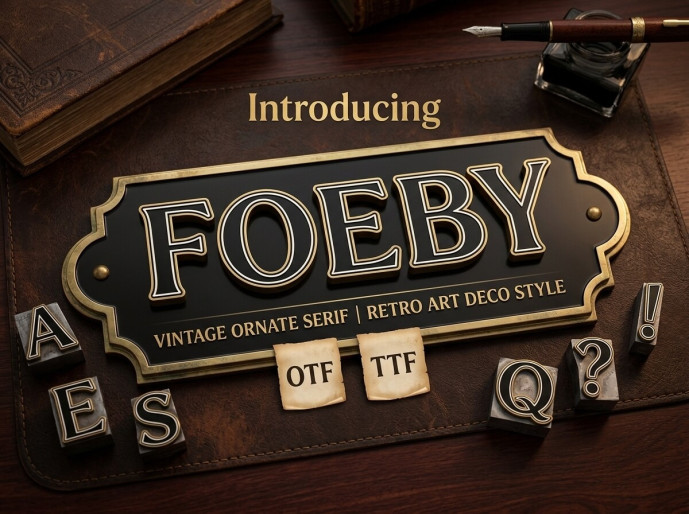
Fodor Font
Introduce a timeless layer of Gatsby-era sophistication, heritage luxury, and classic craftsmanship to your designs with Foeby, an ornate vintage serif font! It is a premier creative asset for boutique liquor labels, heritage brand logos, upscale packaging, classic restaurant menus, and luxury event invitations.